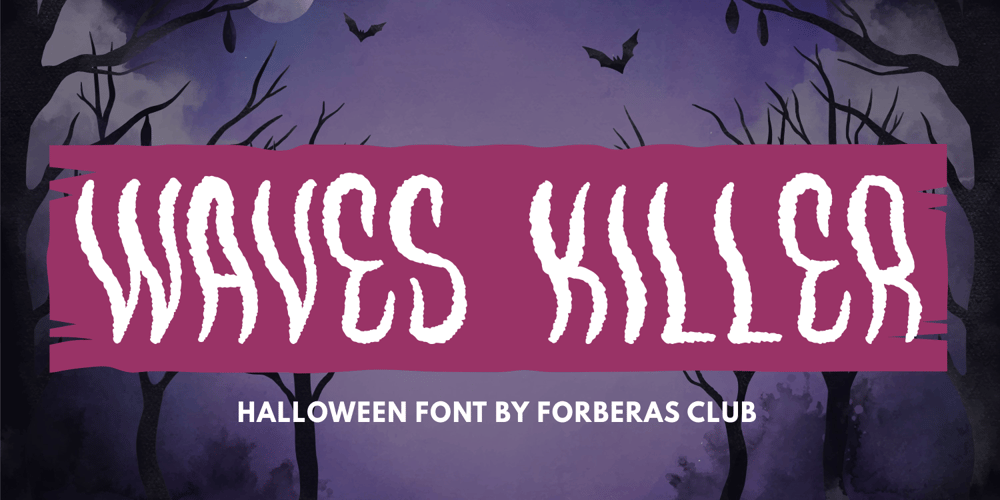
Waves Killer
Waves Killer font
Waves Killer Font Family was designed by ANGGI HERMAWAN and published by Forberas Club. Waves Killer contains 1 styles and family package options. Introducing Waves Killer by forberas, This font born to be a Halloween Project. But still can be made as a display font, and still suit your other fun project. Your review and response are most welcome.